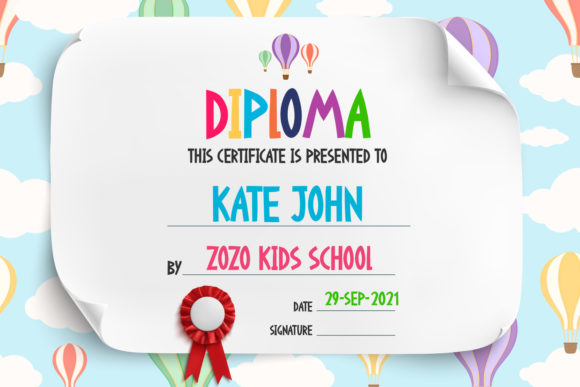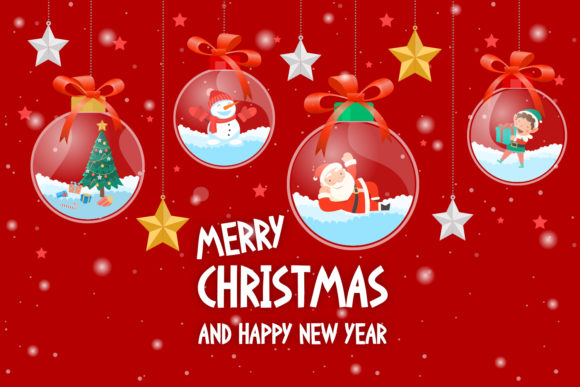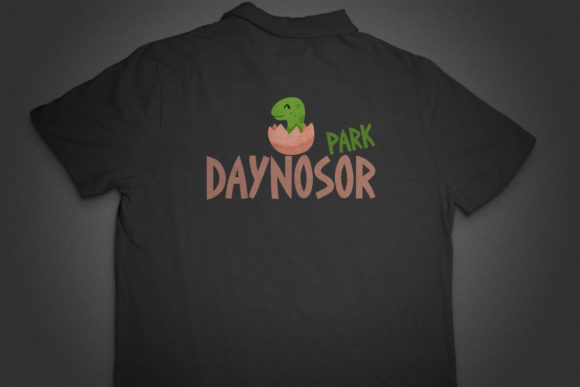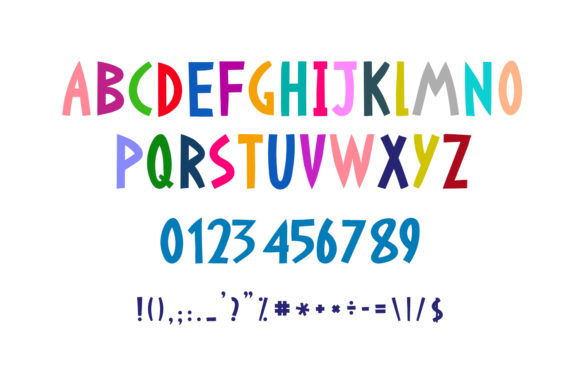
Adding a Dash of Whimsy to Your Designs with Funny Cartoon Font
Are you tired of using the same old fonts in your designs? Do you want to add a touch of playfulness and humor to your projects? Look no further than the Funny Cartoon font! This bold and chunky lettered display font is perfect for designers and crafters who want to bring a smile to their audience’s faces. In this article, we’ll explore the features and benefits of Funny Cartoon font and show you how to use it to brighten up any kids and school project.
What is Funny Cartoon Font?
Funny Cartoon font is a bold and chunky lettered display font that’s designed to bring a childlike playfulness to your designs. Its unique and quirky lettering style makes it perfect for projects that require a dash of humor and whimsy. Whether you’re working on a kids’ party invitation, a school project, or a craft tutorial, Funny Cartoon font is sure to add a touch of fun and personality to your design.
Key Features of Funny Cartoon Font
- Bold and Chunky Lettering: Funny Cartoon font features bold and chunky lettering that’s perfect for making a statement.
- Childlike Playfulness: The font’s unique and quirky style is reminiscent of children’s handwriting, making it perfect for kids and school projects.
- Easy to Read: Despite its bold and chunky style, Funny Cartoon font is easy to read, making it perfect for headlines, titles, and short paragraphs of text.
- Versatile: Funny Cartoon font can be used for a wide range of projects, from kids’ party invitations to school projects, craft tutorials, and more.
Benefits of Using Funny Cartoon Font
So why should you use Funny Cartoon font in your designs? Here are just a few benefits:
- Adds a Touch of Whimsy: Funny Cartoon font adds a touch of whimsy and humor to your designs, making them more engaging and fun to look at.
- Perfect for Kids and School Projects: The font’s childlike playfulness makes it perfect for kids and school projects, such as party invitations, homework assignments, and craft tutorials.
- Great for Crafters and Designers: Funny Cartoon font is perfect for crafters and designers who want to add a personal touch to their projects.
How to Use Funny Cartoon Font
Using Funny Cartoon font is easy! Here are a few tips to get you started:
- Use it for Headlines and Titles: Funny Cartoon font is perfect for headlines and titles, where its bold and chunky style can really make an impact.
- Add it to Your Kids’ Party Invitations: Add a touch of whimsy to your kids’ party invitations with Funny Cartoon font.
- Use it for School Projects: Funny Cartoon font is perfect for school projects, such as homework assignments, book reports, and science fair projects.
- Get Creative with it: Don’t be afraid to get creative with Funny Cartoon font! Use it to add a touch of humor and whimsy to your designs.
In conclusion, Funny Cartoon font is a bold and chunky lettered display font that’s perfect for designers and crafters who want to add a touch of whimsy and humor to their projects. Its childlike playfulness makes it perfect for kids and school projects, and its ease of use makes it a great choice for crafters and designers of all skill levels. So why not give Funny Cartoon font a try? Download it today and see how it can brighten up your designs!